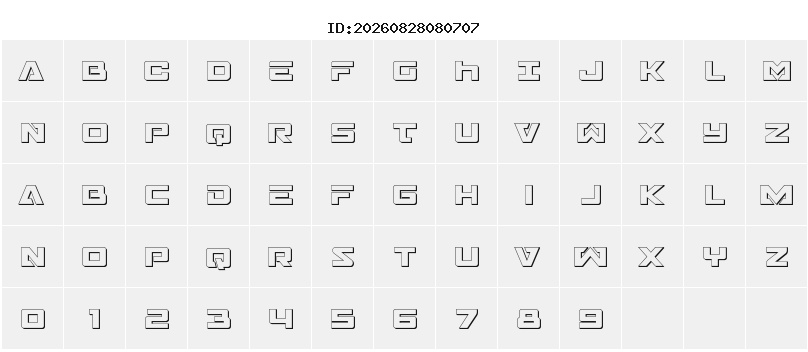
• Font Name: Trans-America 3D
About Trans-America 3D.ttf
Trans-America 3D.ttf is a modern, elegant sans-serif font designed for ultimate readability and visual harmony. Perfect for branding, headlines, web design, and print materials.